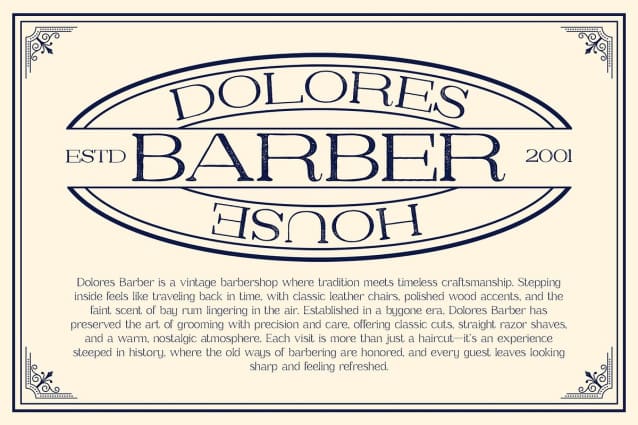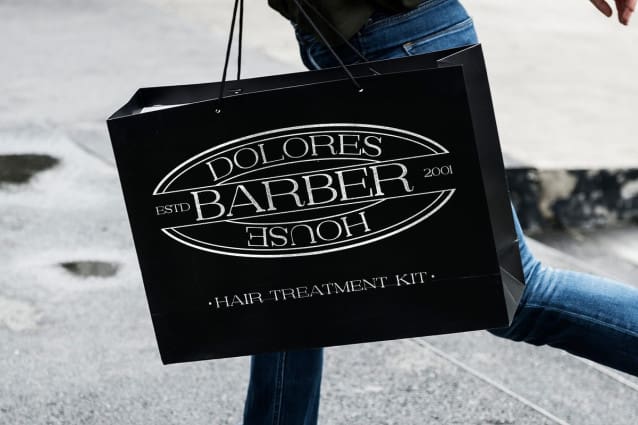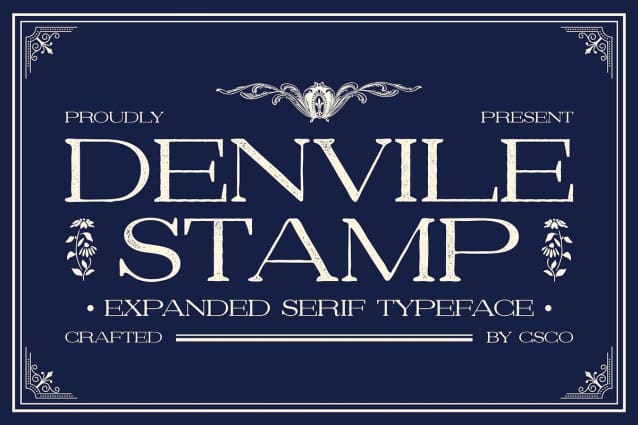
Denvile Stamp Font
Denvile Stamp Font is a modern serif font featuring a wide shape that exudes elegance and sophistication. The generous proportions create a strong presence, making it ideal for designs that seek to make a statement.
Textured Stamp Effect for Vintage Charm Wrapped in a distinctive stamp effect, Denvile Stamp adds a textured touch that enhances its vintage character. This unique finish introduces an artistic quality, making the font perfect for projects that require a blend of classic charm and contemporary style.
Versatile for Various Design Applications Ideal for branding, invitations, and editorial design, Denvile Stamp seamlessly adapts to a variety of creative projects. Its combination of luxurious elegance and engaging texture ensures that your designs stand out with a sophisticated flair, captivating the audience’s attention in any context.
Perfect for Luxurious and Engaging Designs Whether used in high-end branding or stylish editorial layouts, Denvile Stamp offers a refined yet approachable aesthetic. This font is your go-to choice for creating visuals that resonate with both modern and nostalgic sensibilities, elevating your design to new heights.